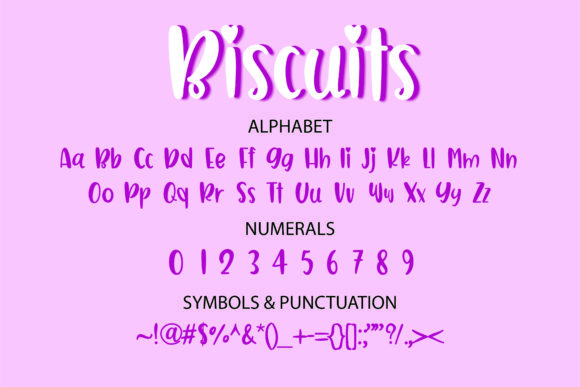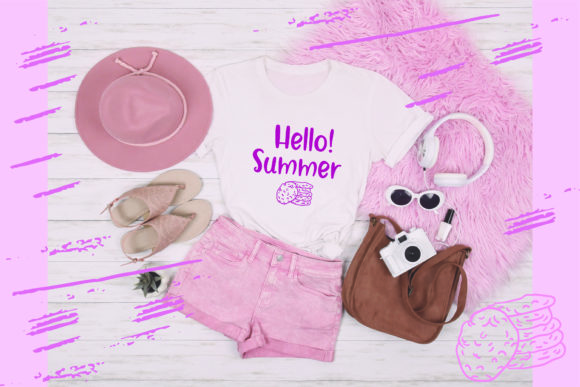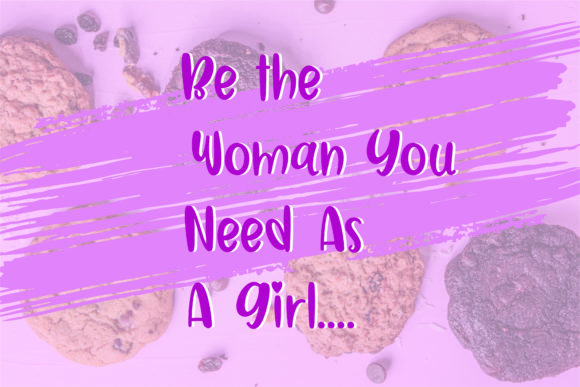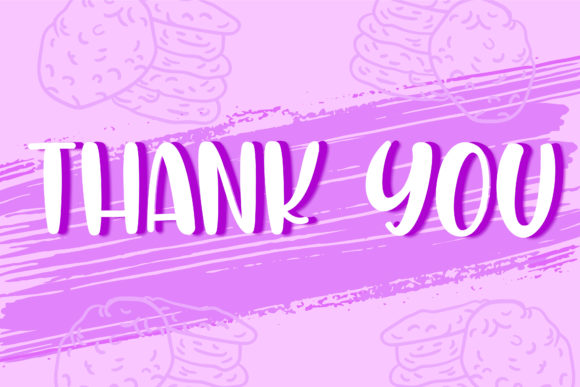
Biscuits Font: The Perfect Addition to Your Design Arsenal
Are you tired of using the same old fonts in your designs? Look no further than Biscuits Font, a fun and friendly display font that’s sure to make your creations stand out. With its simple yet strong visual effect, Biscuits Font is the perfect addition to any designer’s arsenal.
What is Biscuits Font?
Biscuits Font is a display font designed to add a touch of whimsy and playfulness to your designs. Its unique and eye-catching style makes it perfect for use in a variety of projects, from branding and advertising to packaging and signage.
Key Features of Biscuits Font
- Fun and Friendly: Biscuits Font has a lighthearted and approachable feel that’s sure to appeal to a wide range of audiences.
- Simple yet Effective: Despite its simplicity, Biscuits Font has a strong visual effect that’s sure to grab attention.
- Versatile: Biscuits Font can be used in a variety of projects, from digital designs to print materials.
- Easily Readable: Despite its playful style, Biscuits Font is still easy to read, making it perfect for use in body text as well as headlines.
Why Choose Biscuits Font?
So why choose Biscuits Font over other display fonts on the market? Here are just a few reasons:
- Unique Style: Biscuits Font has a unique and distinctive style that’s sure to set your designs apart from the competition.
- High-Quality: Biscuits Font is a high-quality font that’s designed to produce crisp, clear results at any size.
How to Use Biscuits Font
Biscuits Font is easy to use in a variety of design projects. Here are a few ideas to get you started:
- Branding and Advertising: Use Biscuits Font to create eye-catching logos, ads, and marketing materials that are sure to grab attention.
- Packaging: Add a touch of whimsy to your product packaging with Biscuits Font.
- Signage: Use Biscuits Font to create eye-catching signs and displays that are sure to stand out.
- Digital Designs: Use Biscuits Font in your digital designs, such as social media graphics, blog posts, and website headers.
Tips for Getting the Most out of Biscuits Font
Here are a few tips for getting the most out of Biscuits Font:
- Experiment with Different Sizes: Biscuits Font looks great at a variety of sizes, so don’t be afraid to experiment to find the perfect size for your project.
- Pair with Other Fonts: Biscuits Font pairs well with a variety of other fonts, so try pairing it with some of your favorite fonts to create a unique look.
- Use in Combination with Images: Biscuits Font looks great in combination with images, so try using it to add text to your favorite photos or illustrations.
In conclusion, Biscuits Font is a fun and friendly display font that’s sure to add a touch of whimsy and playfulness to your designs. With its simple yet strong visual effect, Biscuits Font is the perfect addition to any designer’s arsenal. Whether you’re a seasoned pro or just starting out, Biscuits Font is a great choice for any design project.